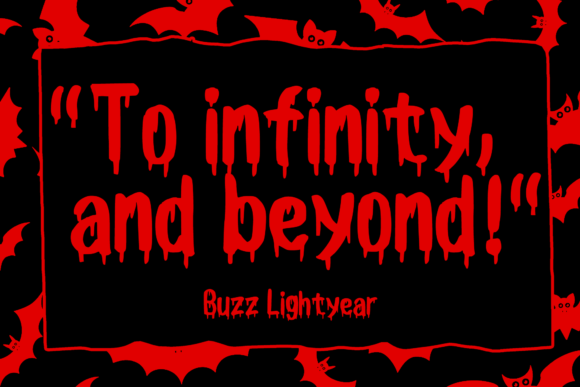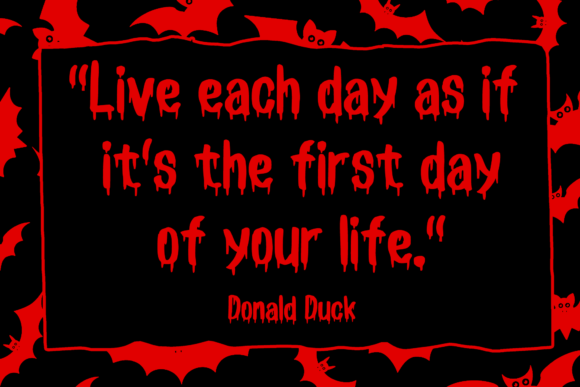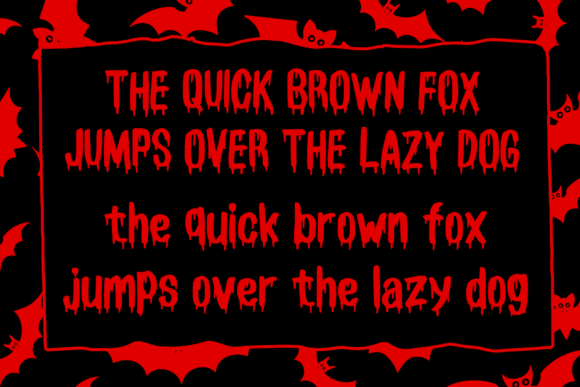
Blood of Dracula Font: The Ultimate Display Font for Dramatic Designs
Are you looking for a font that can add a touch of drama and elegance to your designs? Look no further than the Blood of Dracula font. This unique blood-dripping display font is perfect for creating stunning designs that will leave a lasting impression. In this article, we’ll explore the features and benefits of the Blood of Dracula font, and how you can use it to take your designs to the next level.
What is Blood of Dracula Font?
Blood of Dracula is a distinctive display font that features blood-dripping letters, perfect for creating designs that require a dramatic and eye-catching look. The font is incredibly versatile and can be used for a wide range of projects, from greeting cards and stickers to posters and more. Its unique style is sure to capture the attention of your audience and leave a lasting impression.
Key Features of Blood of Dracula Font
- Unique Blood-Dripping Style: The font features a distinctive blood-dripping style that adds a touch of drama and elegance to your designs.
- Incredibly Versatile: The font can be used for a wide range of projects, from greeting cards and stickers to posters and more.
- High-Quality Design: The font is designed with high-quality graphics, ensuring that your designs look professional and polished.
Benefits of Using Blood of Dracula Font
There are many benefits to using the Blood of Dracula font in your designs. Here are just a few:
- Adds Drama and Elegance: The font’s unique blood-dripping style adds a touch of drama and elegance to your designs, making them stand out from the crowd.
- Increases Versatility: The font’s versatility means you can use it for a wide range of projects, from formal to informal designs.
- Perfect for Horror and Gothic Designs: The font’s blood-dripping style makes it perfect for horror and gothic designs, such as Halloween decorations and Gothic-inspired art.
- Great for Crafters and Designers: The font is perfect for crafters and designers who want to add a touch of drama and elegance to their designs.
Examples of Blood of Dracula Font in Use
The Blood of Dracula font can be used in a variety of design projects. Here are a few examples:
- Greeting Cards: Use the font to create stunning greeting cards for special occasions, such as Halloween or Valentine’s Day.
- Posters: Use the font to create eye-catching posters for horror movies, Gothic-inspired art, or other dramatic designs.
- Stickers: Use the font to create stickers for laptops, water bottles, or other items.
- Social Media Graphics: Use the font to create stunning social media graphics, such as Facebook posts or Instagram stories.
| Font Name | Blood of Dracula Font |
The Blood of Dracula font is a unique and versatile display font that can add a touch of drama and elegance to your designs. Its blood-dripping style makes it perfect for horror and Gothic designs, and its ease of use makes it perfect for designers and crafters of all levels. Whether you’re creating greeting cards, posters, stickers, or social media graphics, the Blood of Dracula font is sure to make your designs stand out from the crowd.